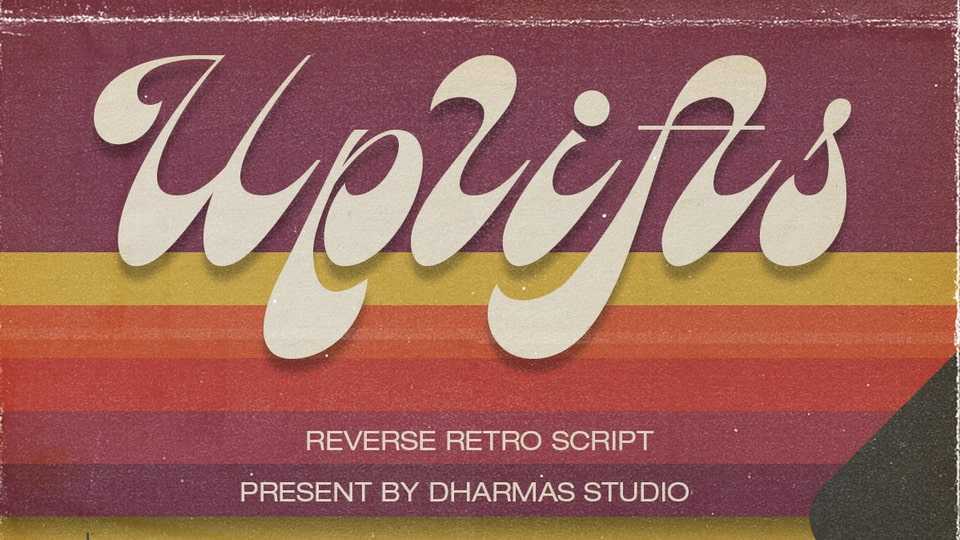
Download Uplifts font, a reverse contrast script typeface designed to make a lasting impression and evoke that retro charm. With its captivating reverse retro script style, Uplifts font brings a sense of groovy nostalgia and smooth elegance.